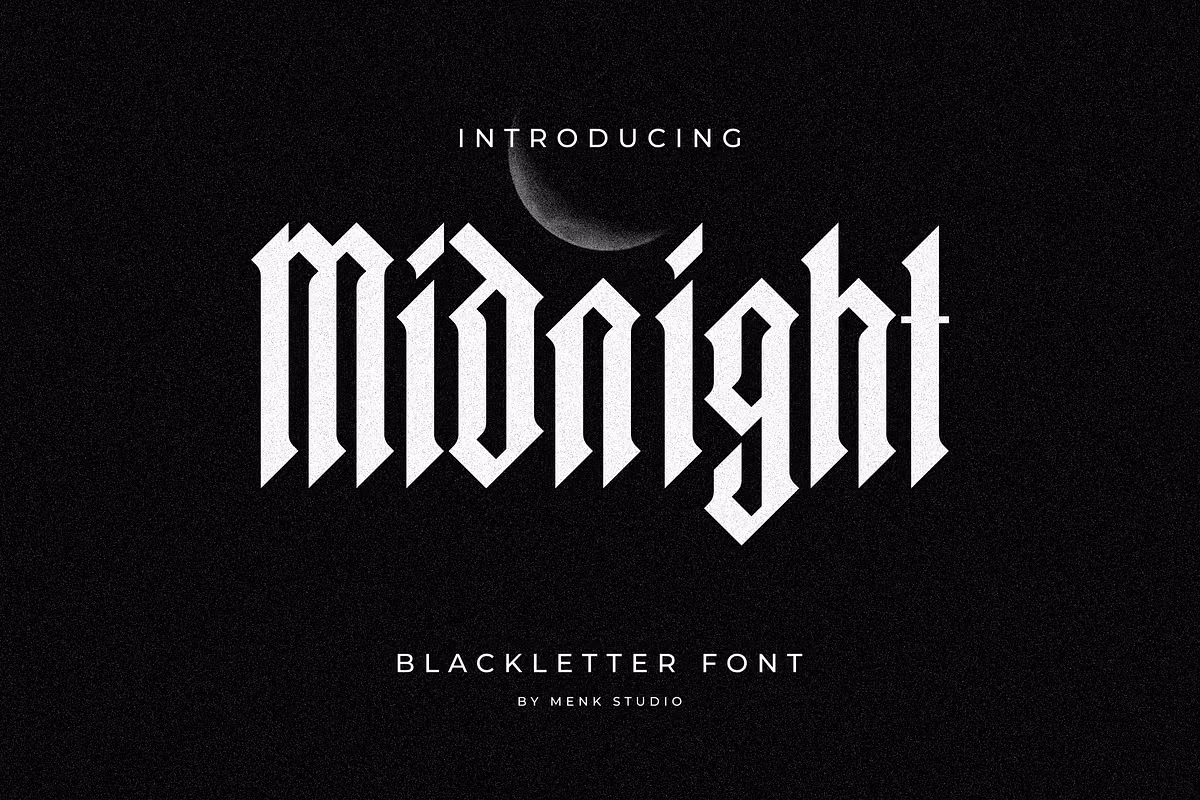
The Midnight Blackletter Display Font Free Download is a bold and dramatic typeface inspired by traditional Gothic blackletter fonts, perfect for projects that require a historic or medieval aesthetic. Ideal for posters, logos, album covers, and vintage-inspired branding, this font brings a dark, mysterious vibe with its intricate, angular design.
With its sharp edges and ornamental details, Midnight Blackletter commands attention and adds a timeless, high-impact look to your designs. It includes uppercase characters, numbers, punctuation, and multilingual support, providing versatility for both digital and print applications.